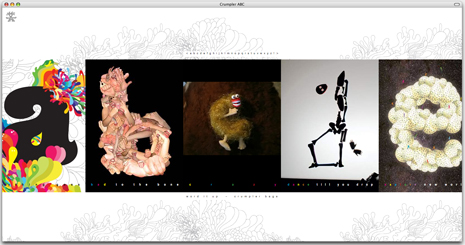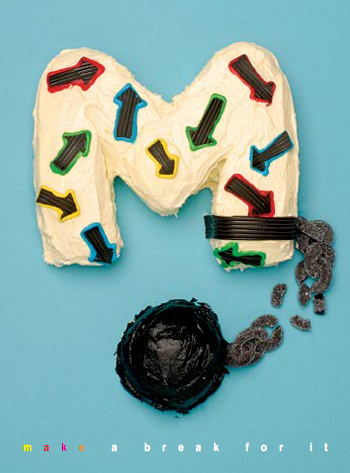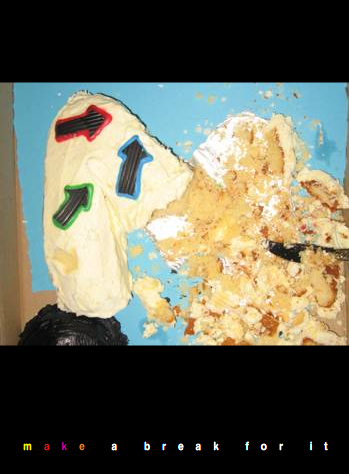
Font Fetish: Animated Alphabet
Thanks to this lively site, alphabetic inspiration is just a click away.
If you're reading this blog, you love type. And if you love type, you owe it to yourself to go to a Web site created by bag maker Crumpler:
On that site, you'll find a riotously colored alphabet made from assorted materials. Why would a bag maker create a Web site devoted to the alphabet? I don't know -- I'm just happy they did.
The letters a, b, c, d, and e.
Each letter is a work of art, and each has its own unique animation. For example, the letter M is a cake shaped like that glyph. Click on the letter and you'll see a slideshow of the cake's journey from raw ingredients to a pile of crumbs.
The letter M in all its glory. Mmmmmm!
I bet it was tasty.